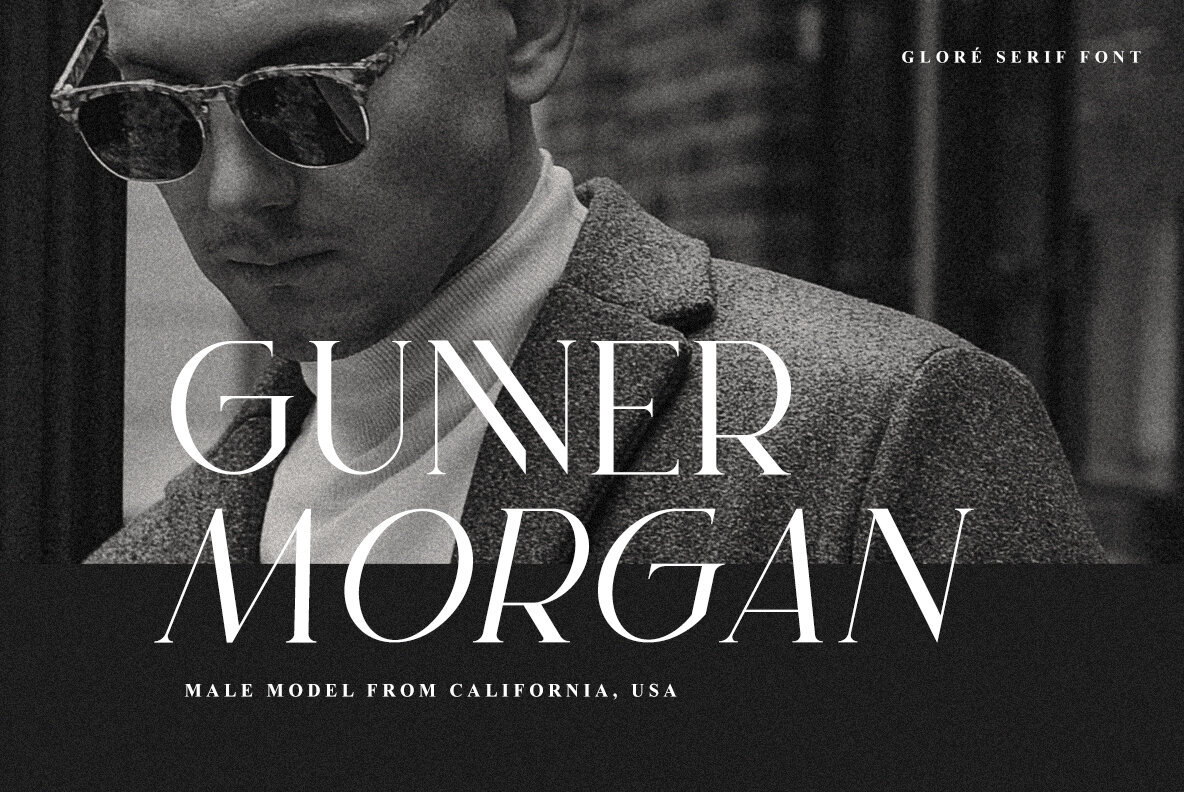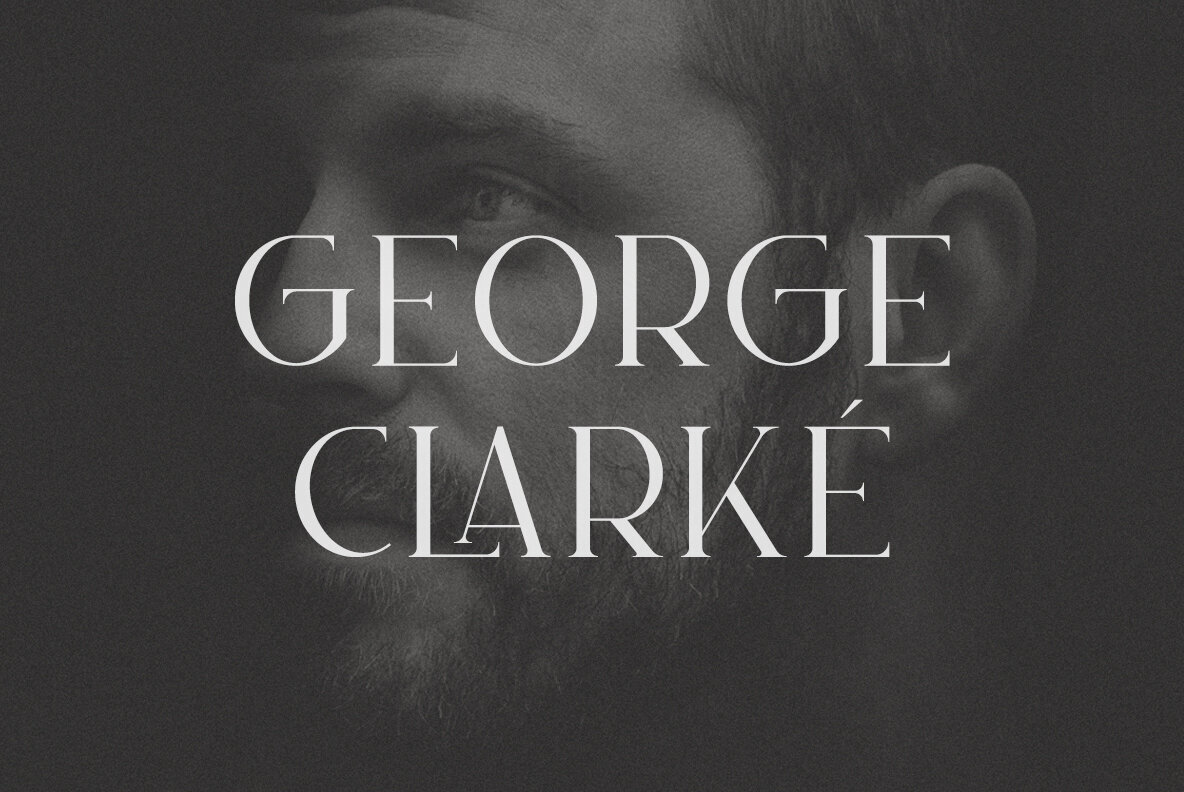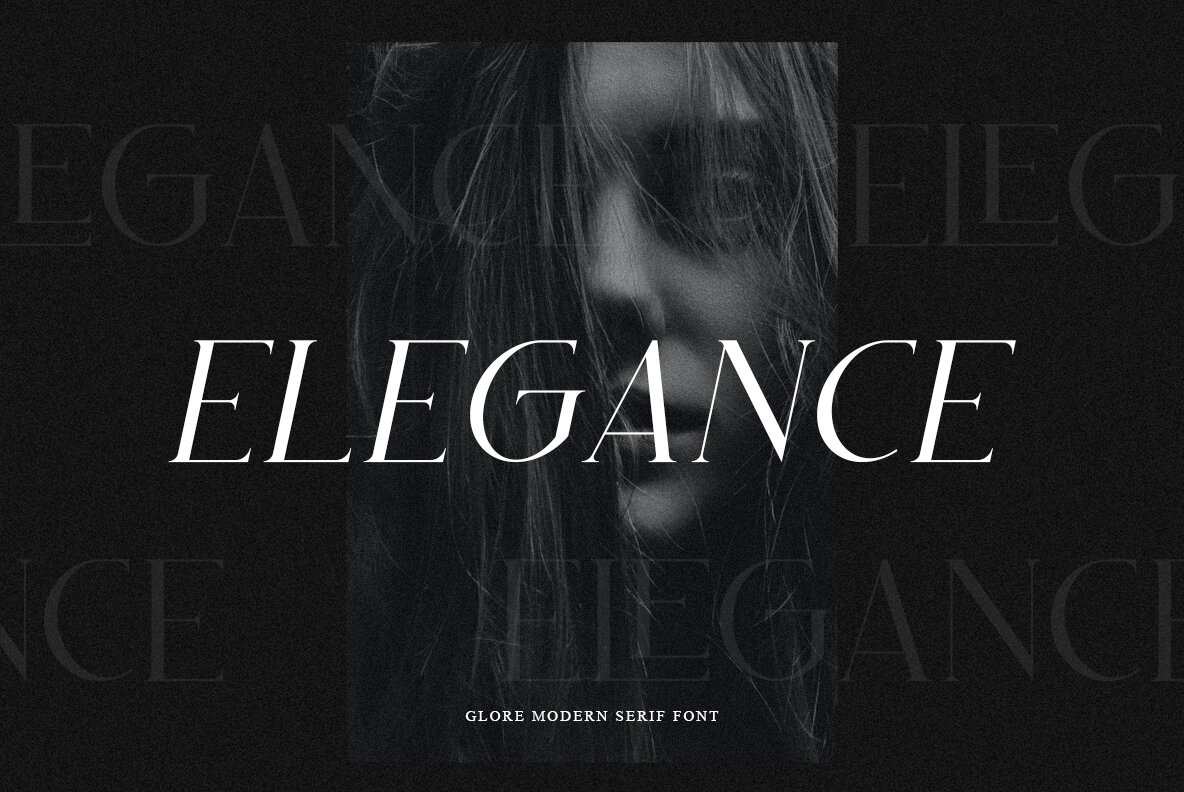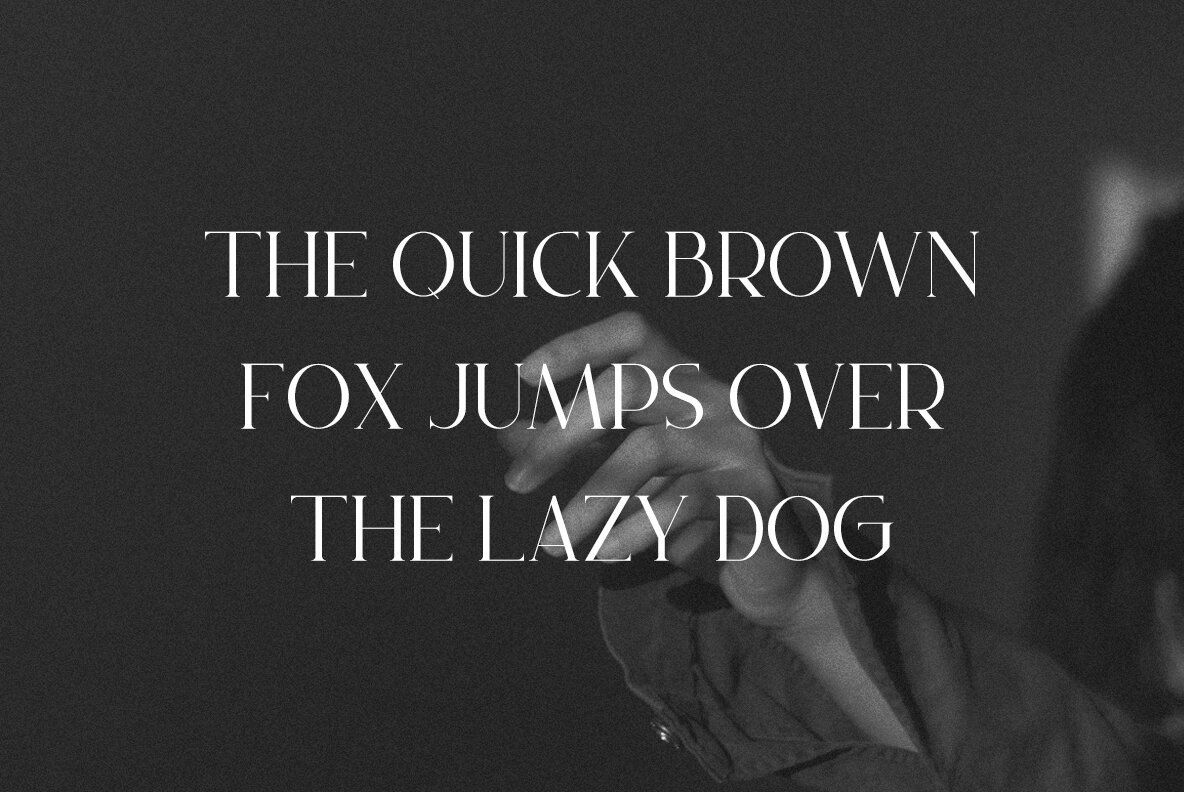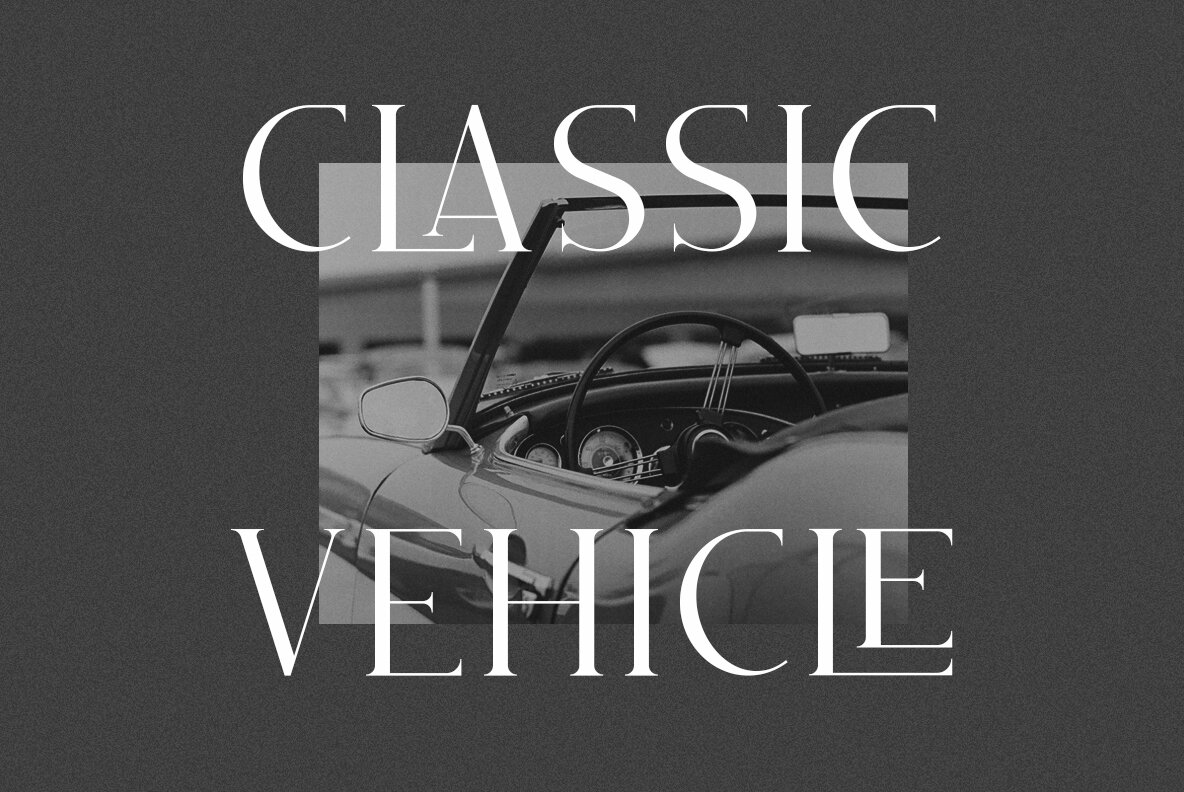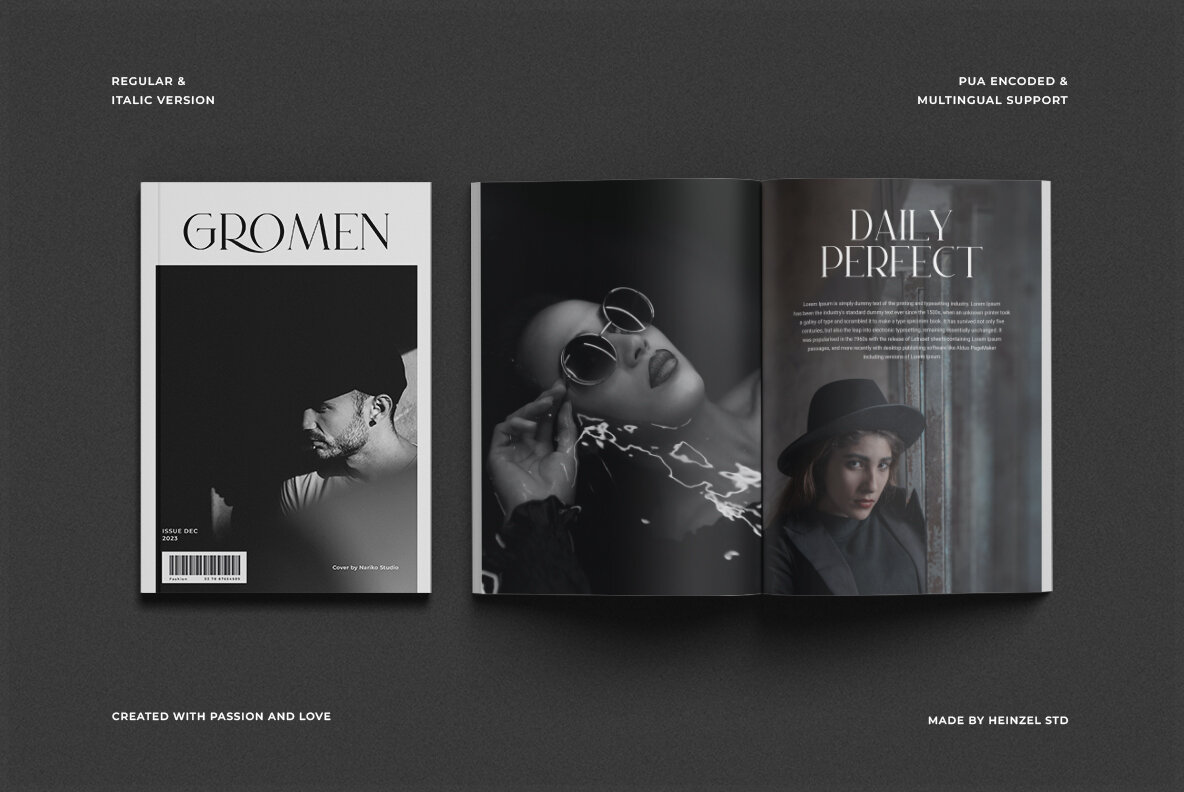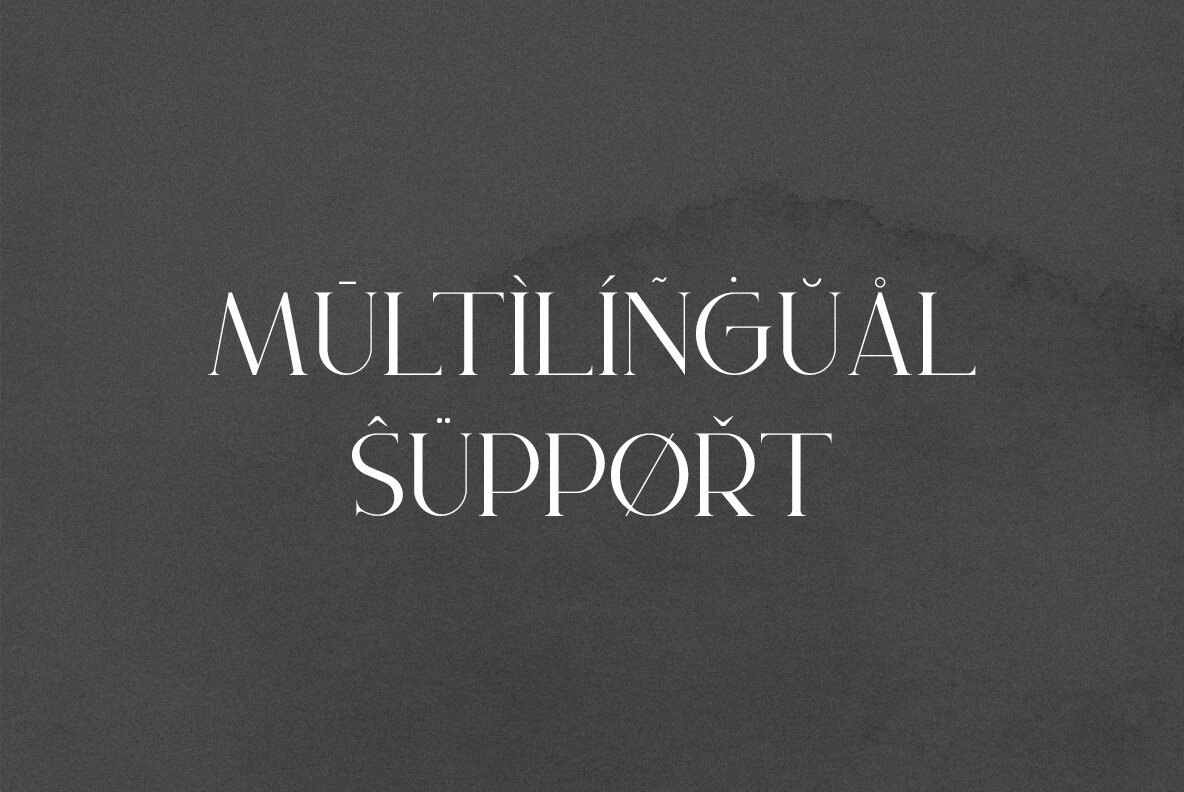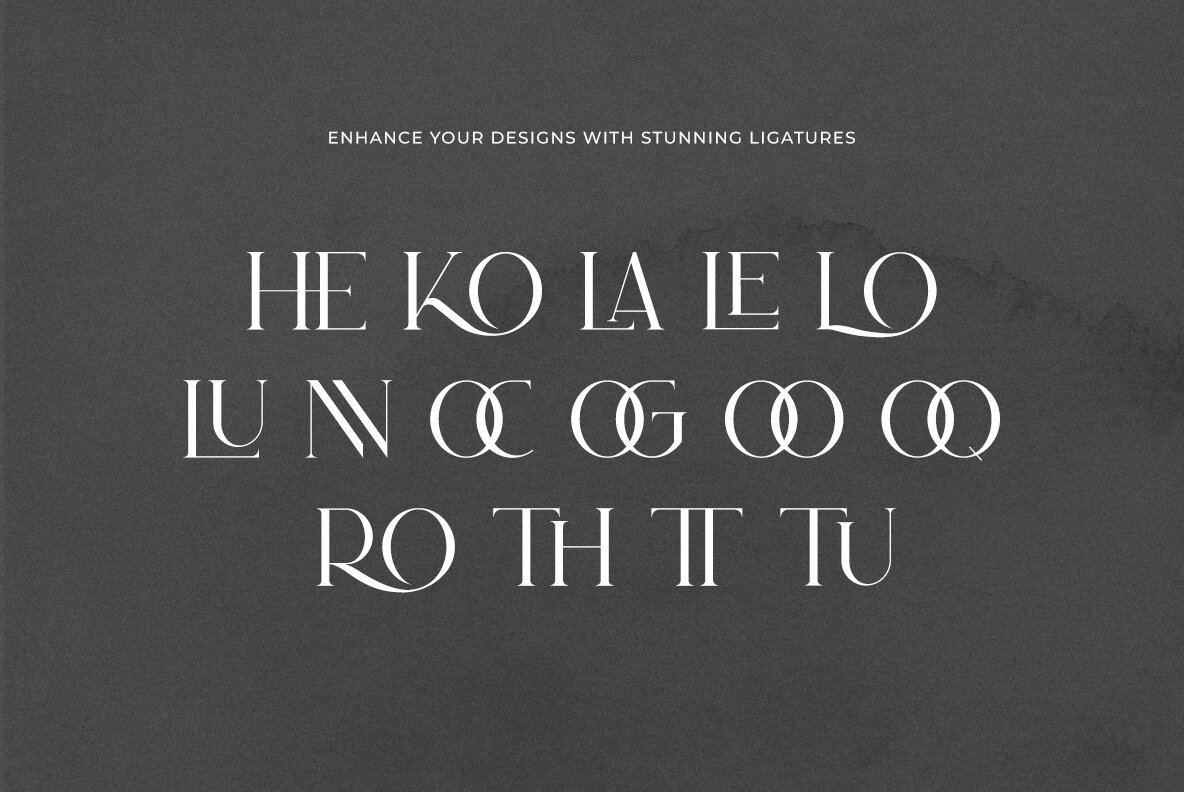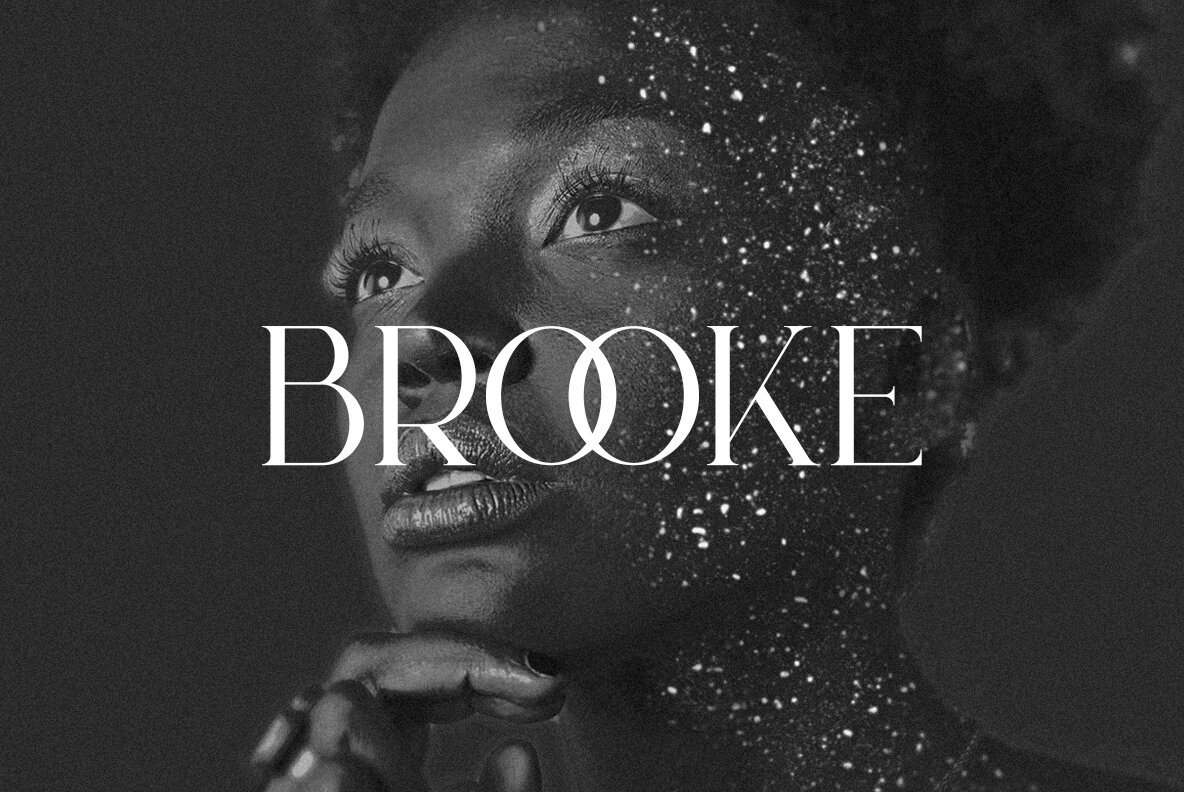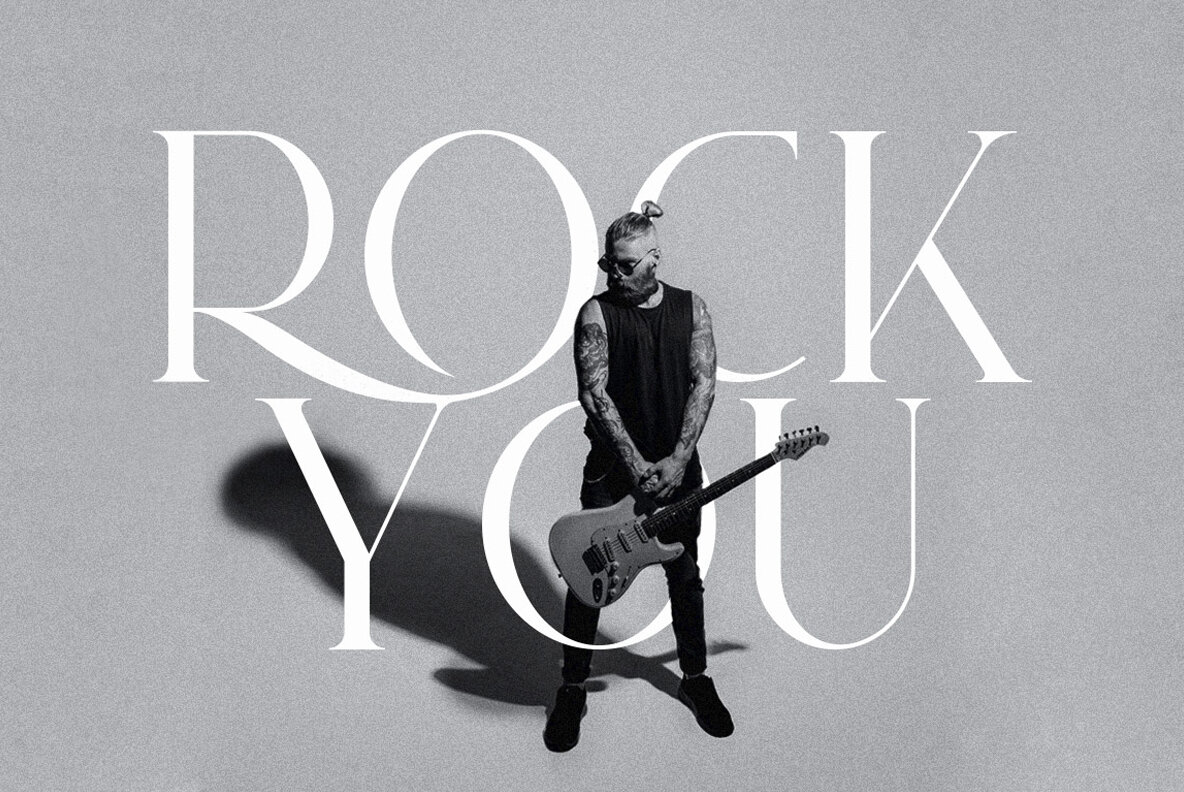
Glore Font
GLORE Regular
Glore Italic
Glore is an elegant and modern serif font. Fall for its ravishing style and use it to create gorgeous wedding invitations, beautiful stationary art, eye-catching social media posts, and much more!
This font is PUA encoded which means you can access all of the amazing glyphs and ligature with ease!